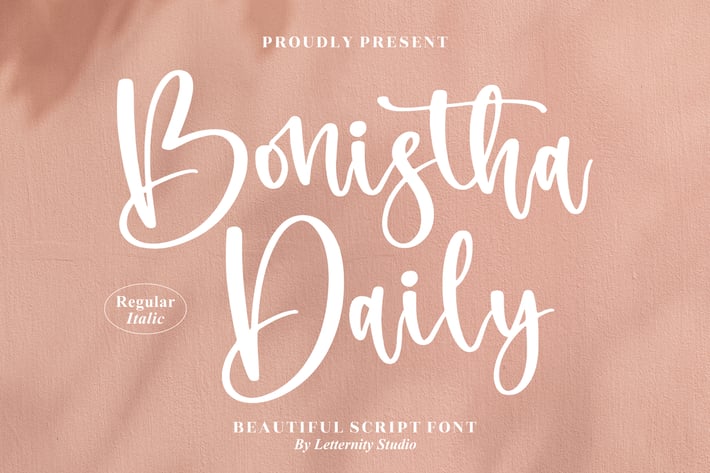
Bonistha Daily Script Font
Bonistha Daily is a soft and beautiful script font designed to bring warmth and elegance to any creative project. With its smooth handwritten flow and natural curves, this font adds a charming personal touch to your visuals. Perfect for branding, social media posts, invitations, or any design that calls for a heartfelt, feminine feel.
Smooth handwritten script style
Regular & Italic versions
Beautiful stroke contrast for an elegant look
Great readability for both print & digital use
Branding & logo design
Social media quotes
Wedding concepts
Greeting cards
Promo graphics
* Personal or creative projects
A sweet and flowing script font that instantly makes any design feel warm, personal, and beautifully crafted.